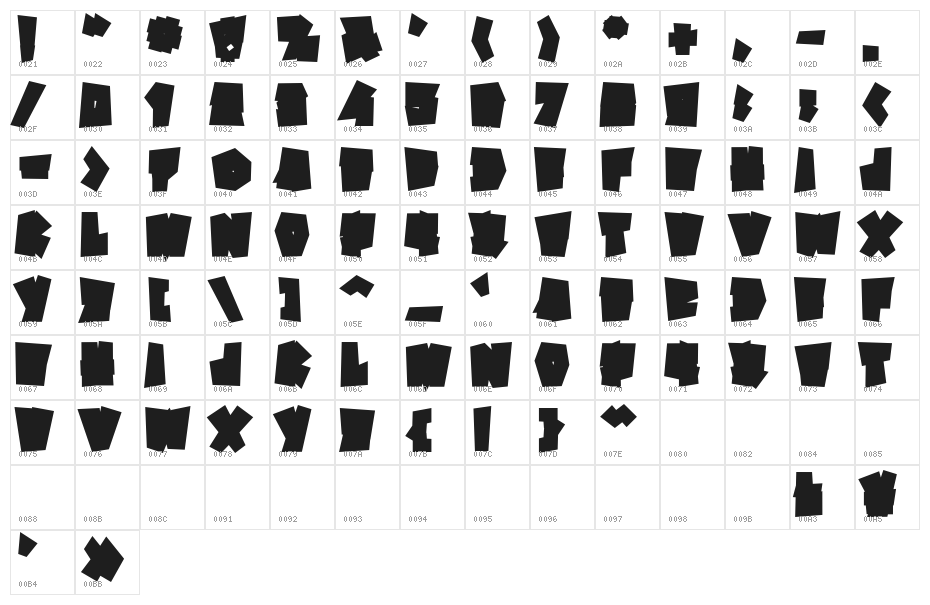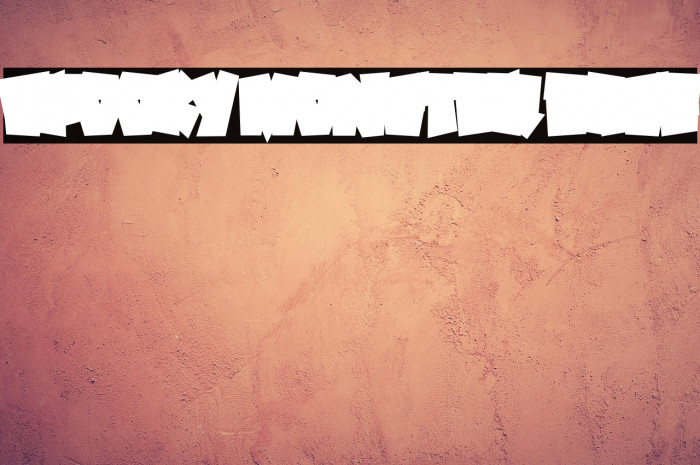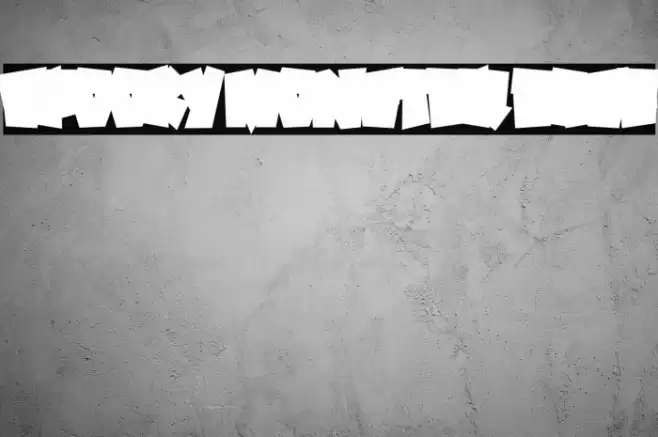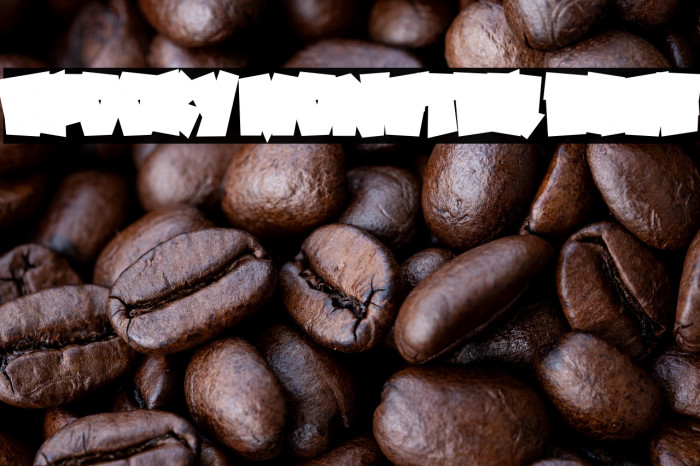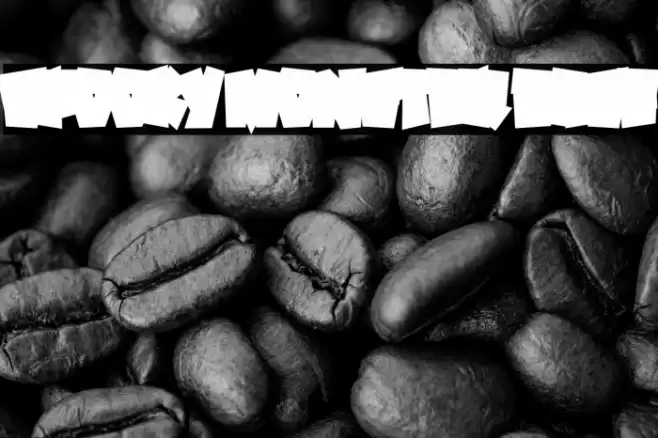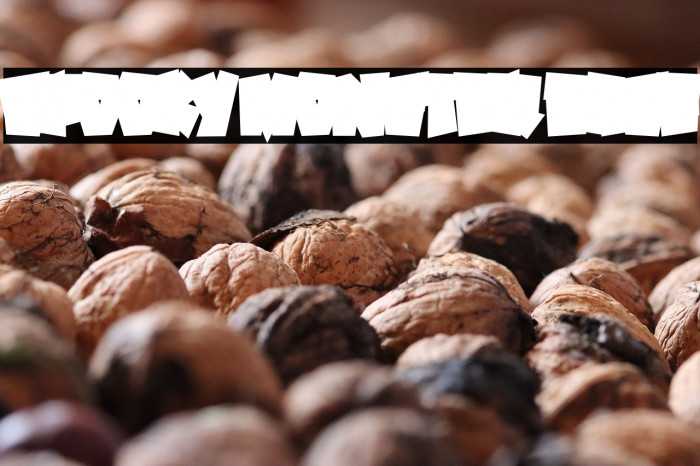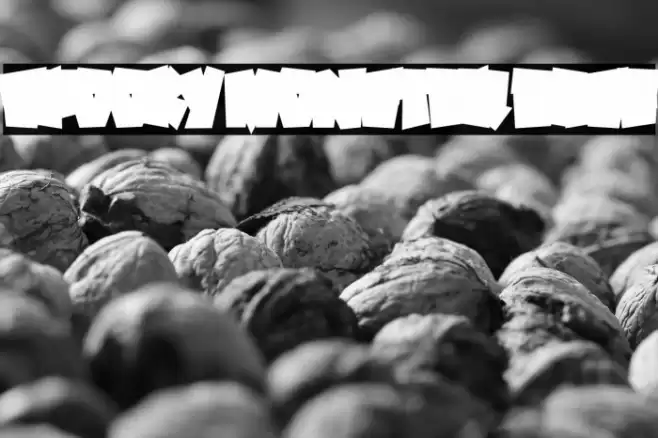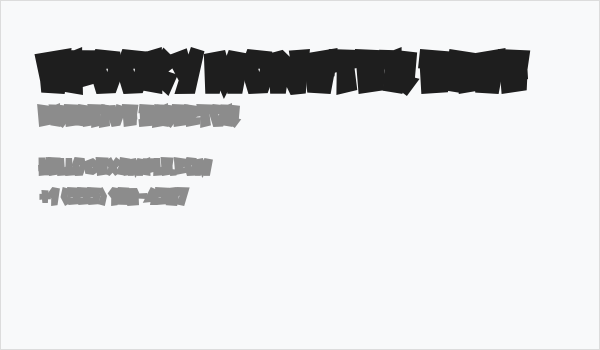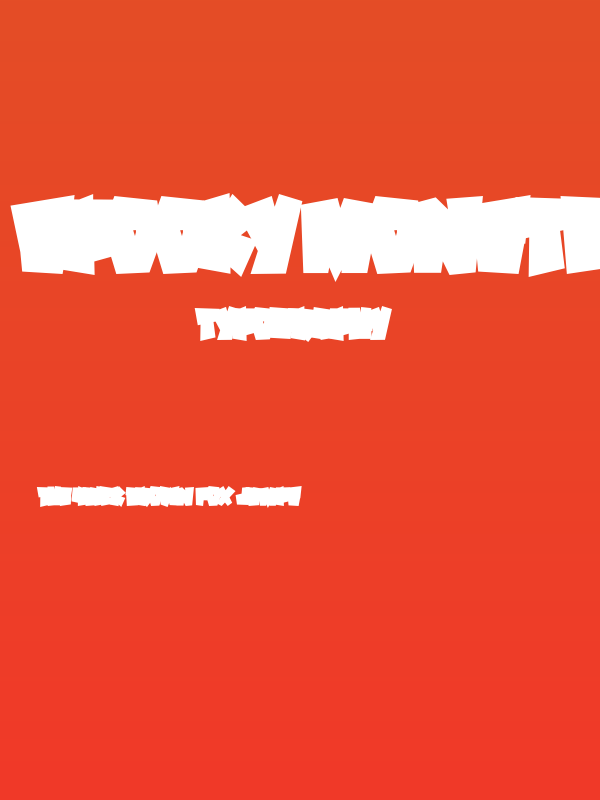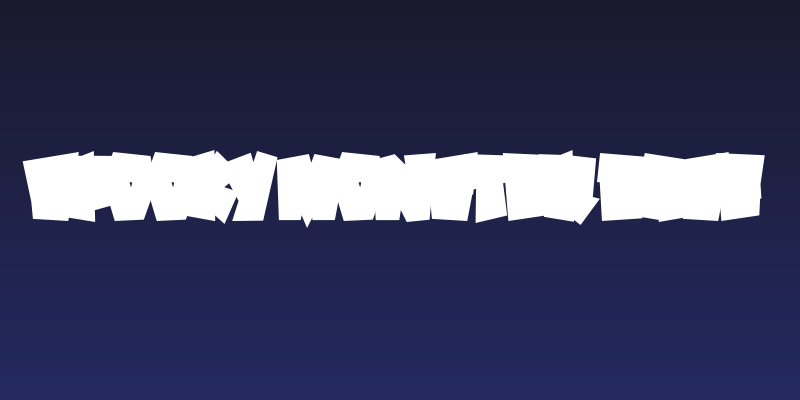
SPOOKY MONSTER BASE Font
SPOOKY MONSTER BASE Description
This font features a bold and jagged design, reminiscent of cut-out paper or torn edges, giving it a spooky and monstrous appearance. The characters are irregularly shaped, with sharp angles and uneven edges, creating a sense of chaos and unpredictability. The uppercase and lowercase letters maintain a consistent style, with exaggerated forms that enhance the eerie aesthetic. Numbers and special characters follow the same design principles, ensuring a cohesive look throughout. This font is perfect for Halloween-themed projects or any design that requires a touch of horror and excitement.
| Use Case | Headlines, Posters, Themed Events |
| Proposed Projects | Ideal for Halloween invitations, horror movie posters, haunted house flyers, and spooky-themed merchandise. |